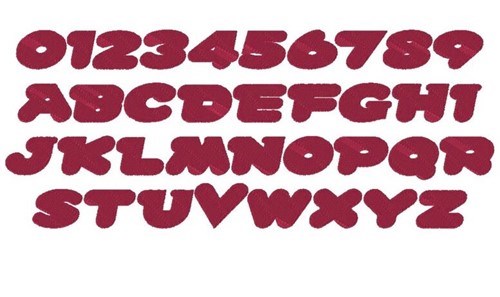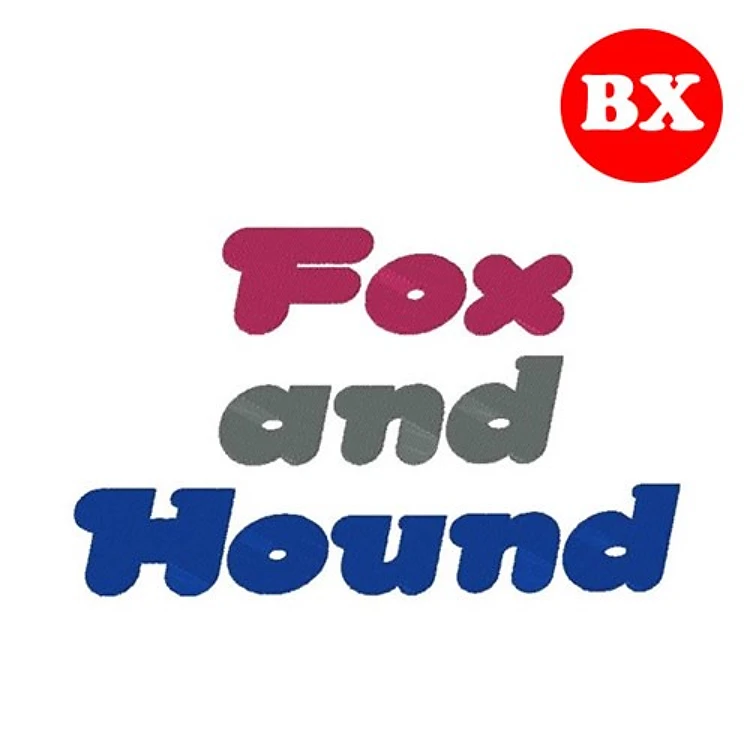
Unicorn Creatives is happy to present Fox And Hound Embrilliance Embroidery Font - Playful Decorative Style - BX font machine embroidery font which has Playful decorative machine embroidery font with rounded edges, perfect for vibrant designs on pillows and cushions. Available in BX font and Embrilliance formats. included. If you would like to view more embroidery fonts and alphabets please search our embroidery fonts page.